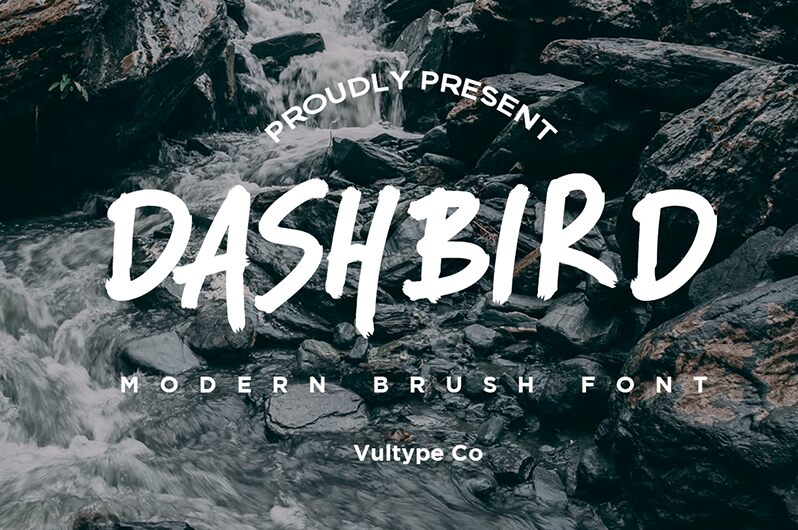
DASHBIRD Regular
Dashbird, a captivating handwritten font crafted by the talented Vultype, exudes a sense of natural elegance and effortless charm. Its flowing, organic strokes evoke feelings of warmth and authenticity, making it a delightful choice for a wide range of design applications. The font's distinctive character and whimsical flair lend themselves beautifully to projects that require a touch of personality and individuality.
This versatile font shines in branding and packaging, where its unique personality can captivate audiences and create a memorable visual impact. Dashbird also excels in editorial design, adding a touch of handcrafted appeal to headlines, pull-quotes, and other typographic elements. Whether you're designing a chic wedding invitation or crafting a charming social media post, Dashbird's distinctive style is sure to elevate your projects with its remarkable aesthetic appeal.